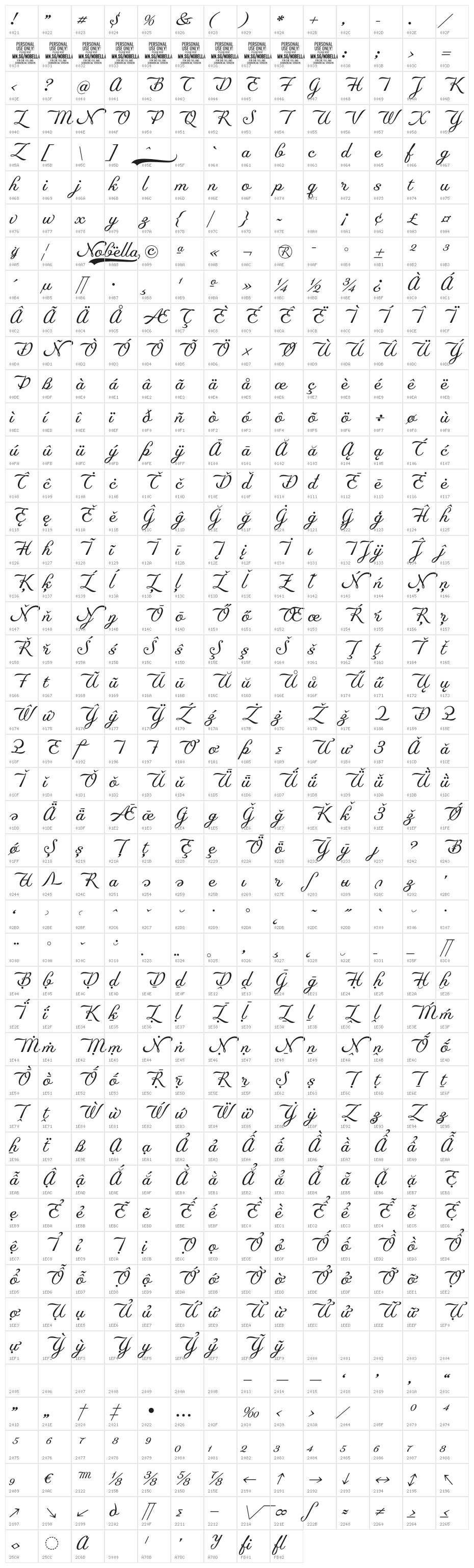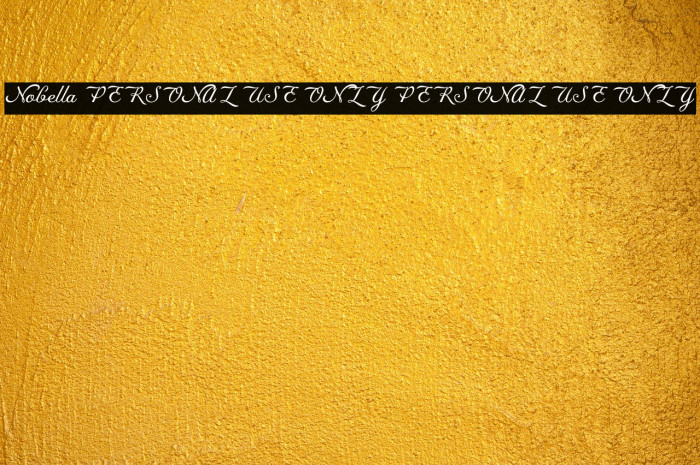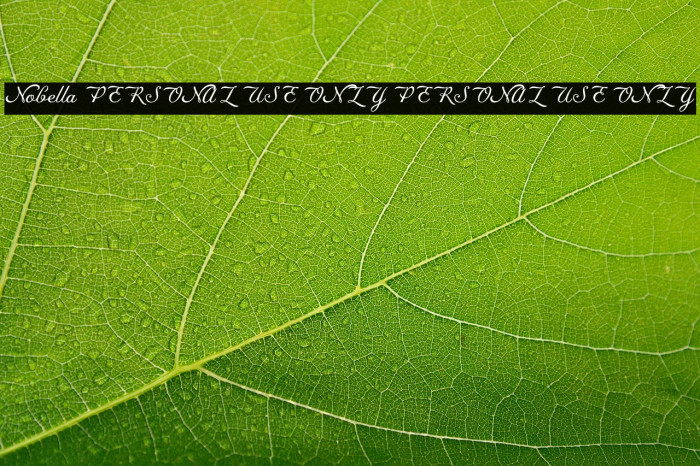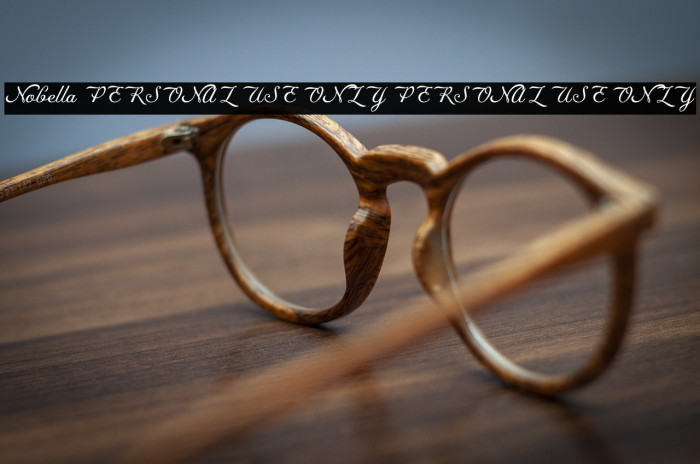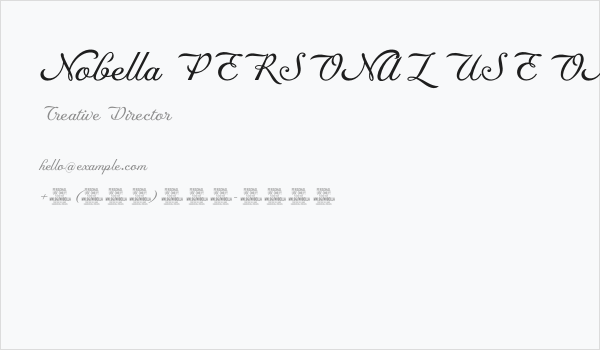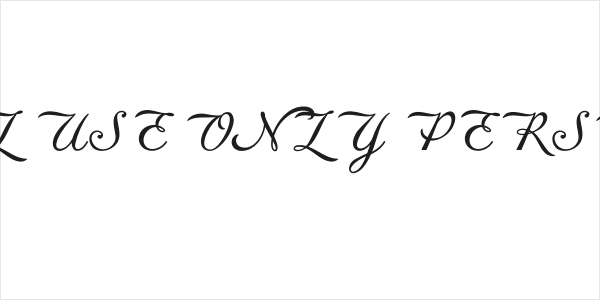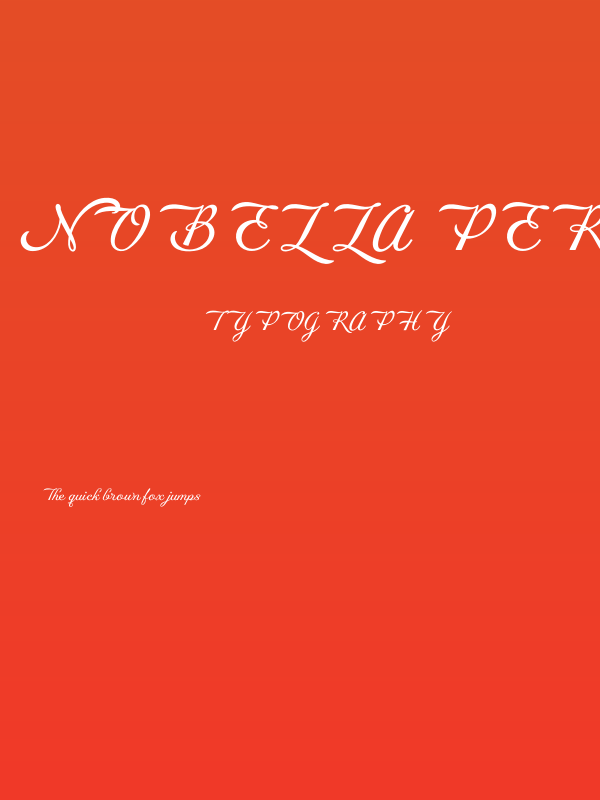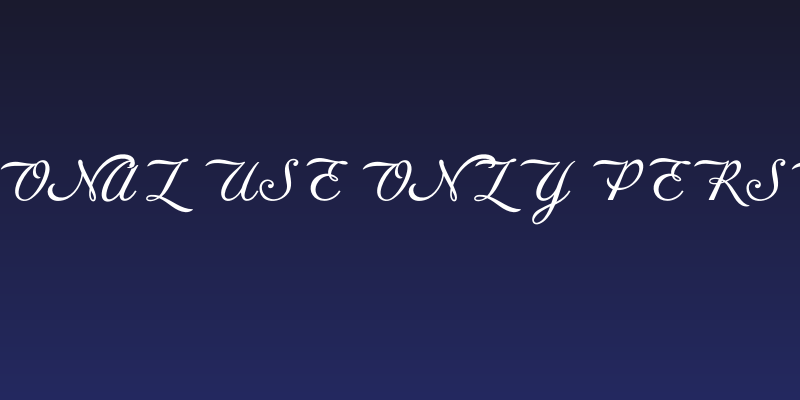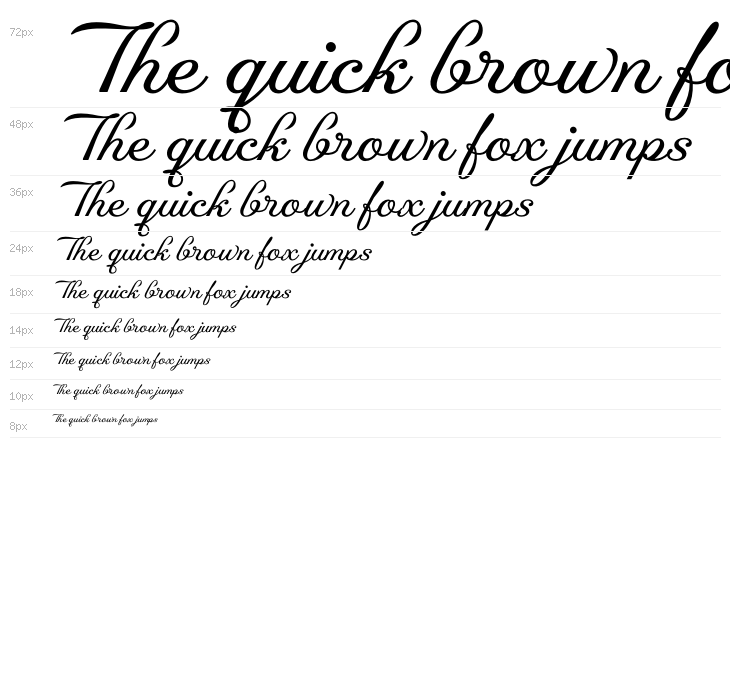
Nobella PERSONAL USE ONLY Font
Nobella PERSONAL USE ONLY Description
This elegant script font features flowing, interconnected letters with a classic and sophisticated appearance. The uppercase characters are slightly more ornate, with sweeping curves and delicate flourishes, while the lowercase letters maintain a consistent, smooth flow. The font's design is reminiscent of traditional calligraphy, offering a sense of grace and refinement. It includes a full set of numerals and a variety of special characters, each crafted with the same attention to detail. The overall impression is one of elegance and fluidity, making it suitable for projects that require a touch of class and sophistication.